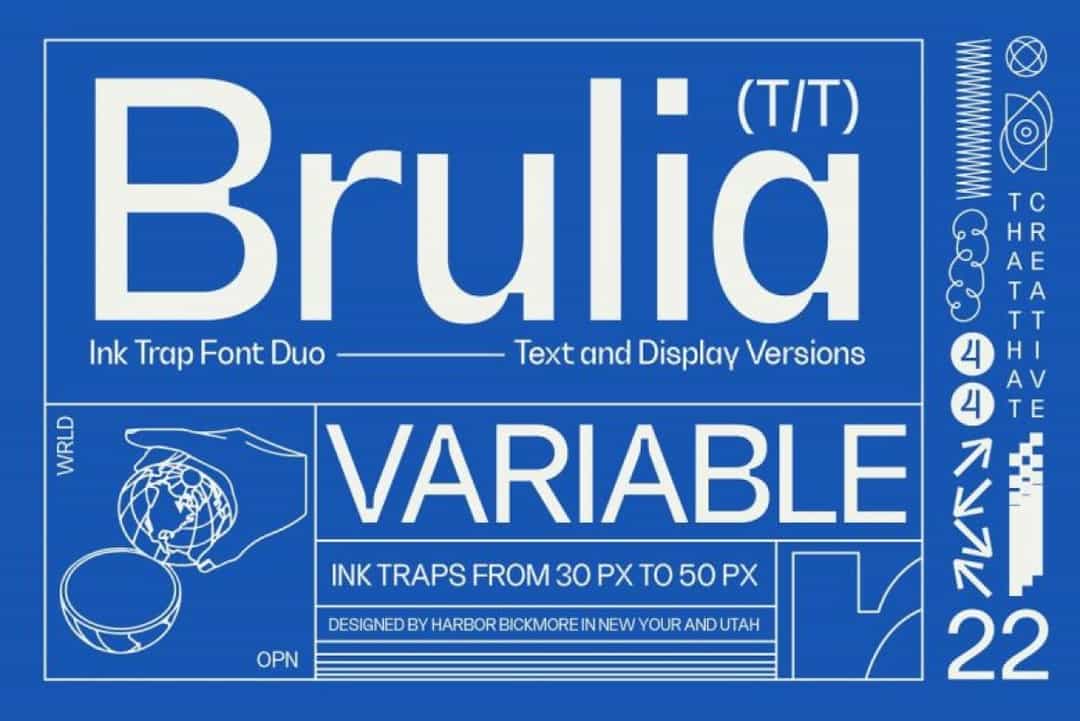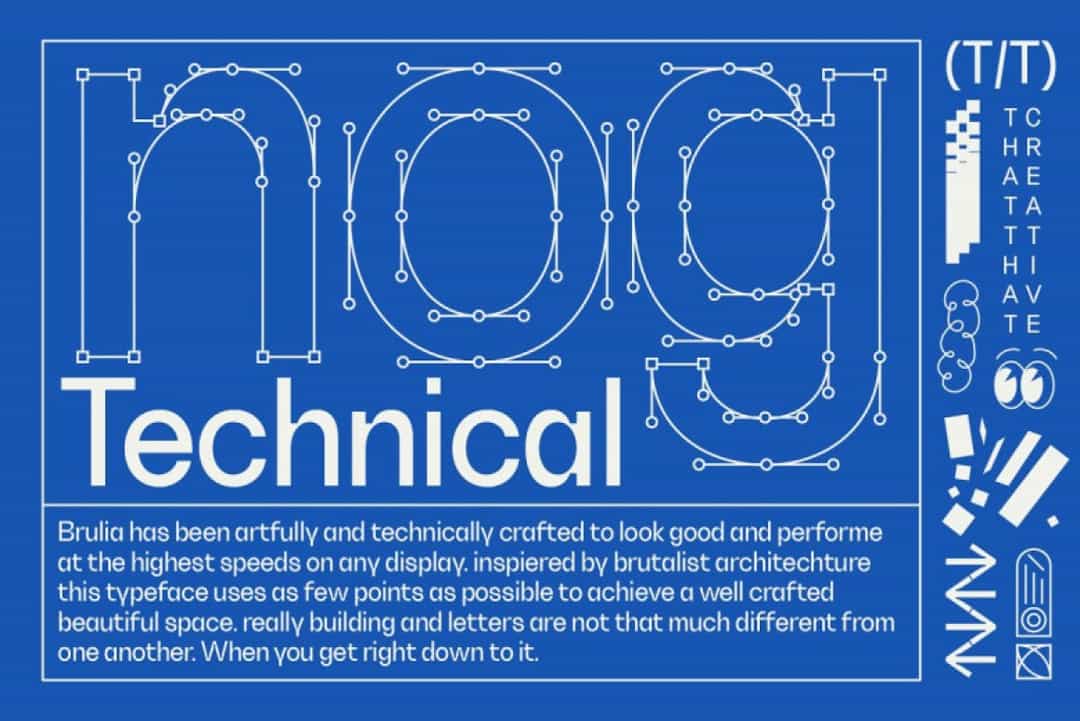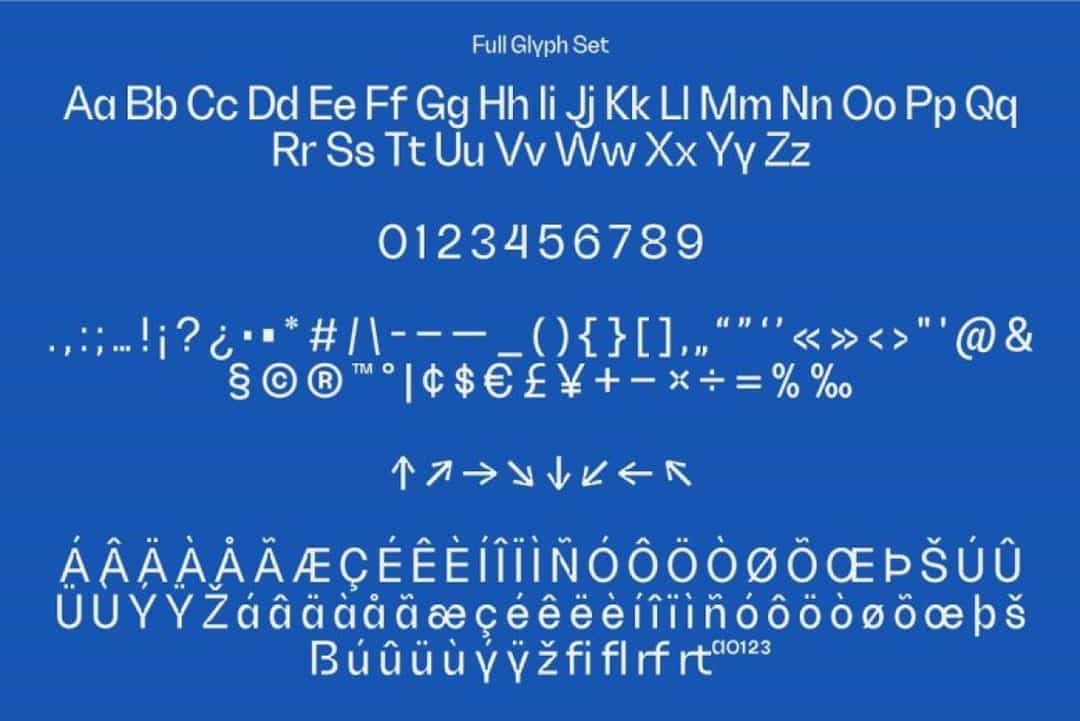
Brulia It is a modern Grotesk Font Duo with Pronounced Variable Ink Traps, inspired by brutalist architecture. Perfect for minimalist geometric designs that focus on type.